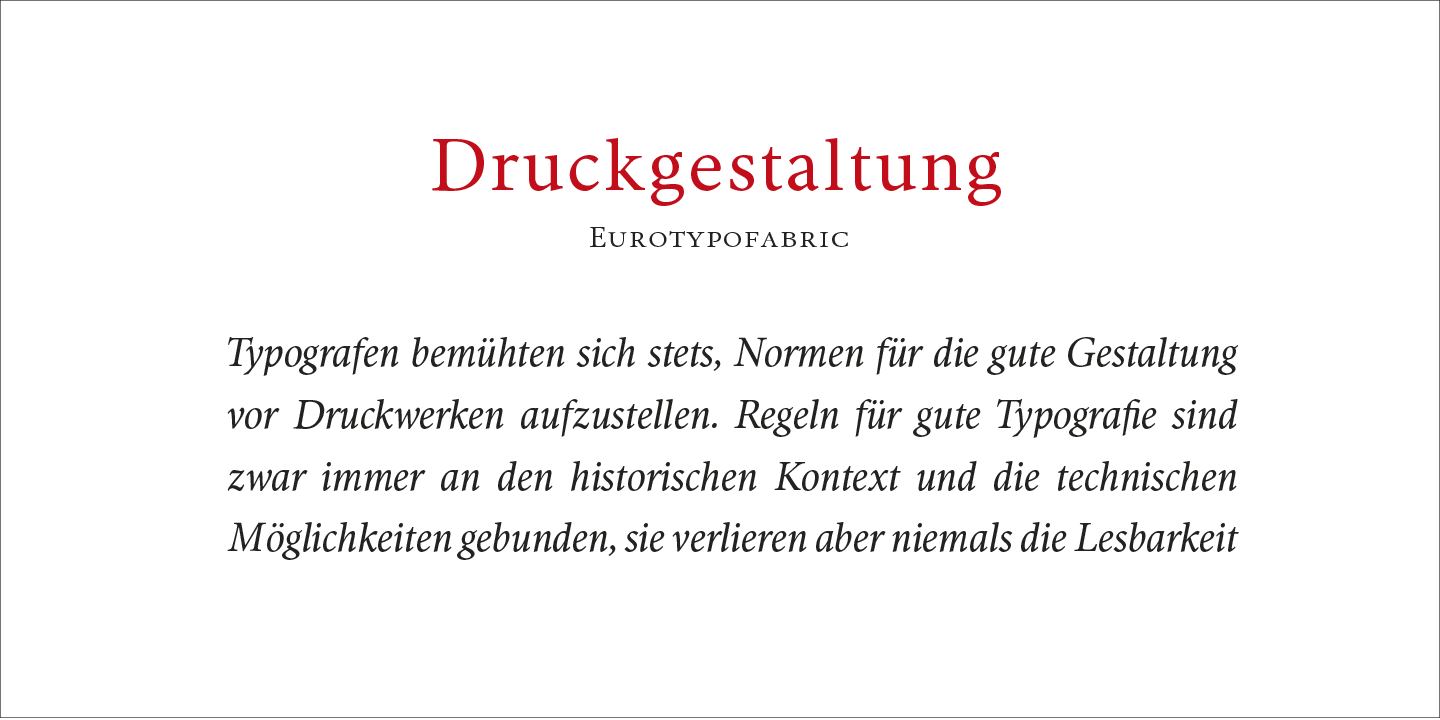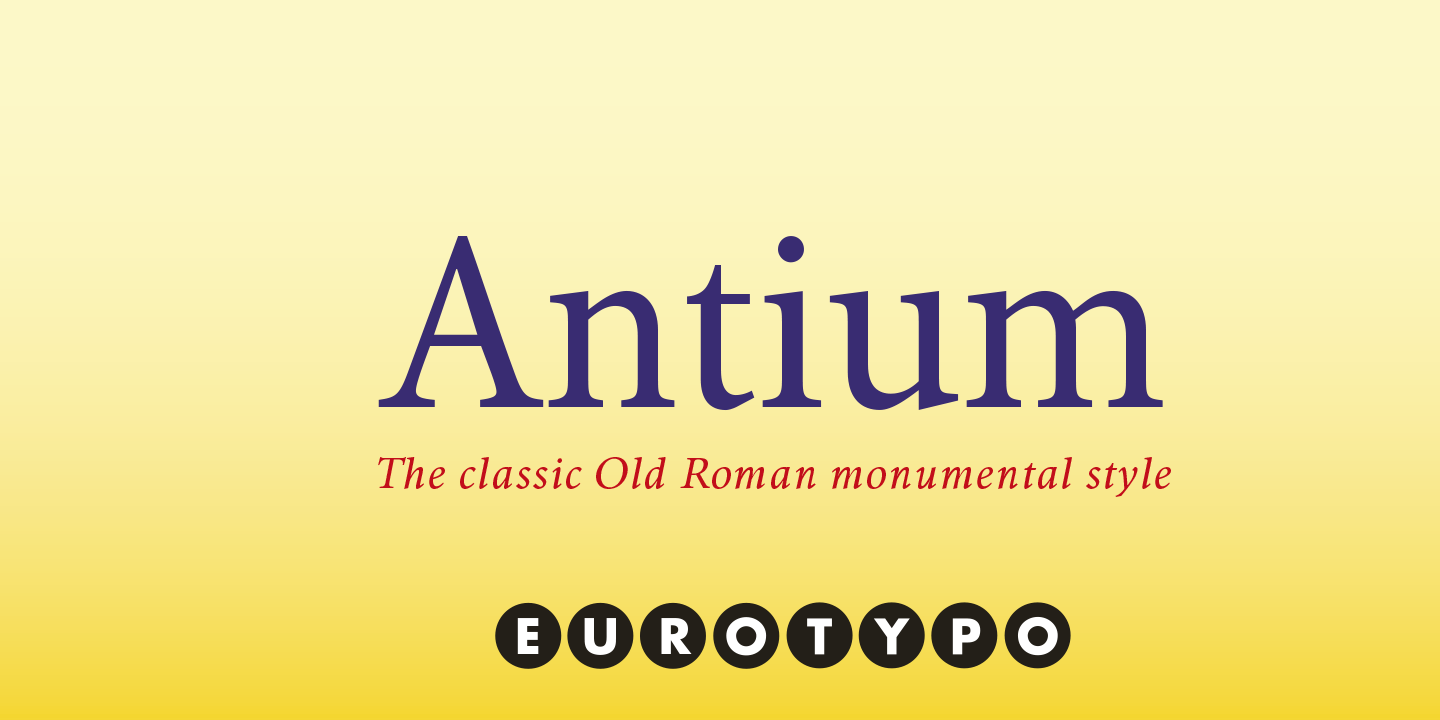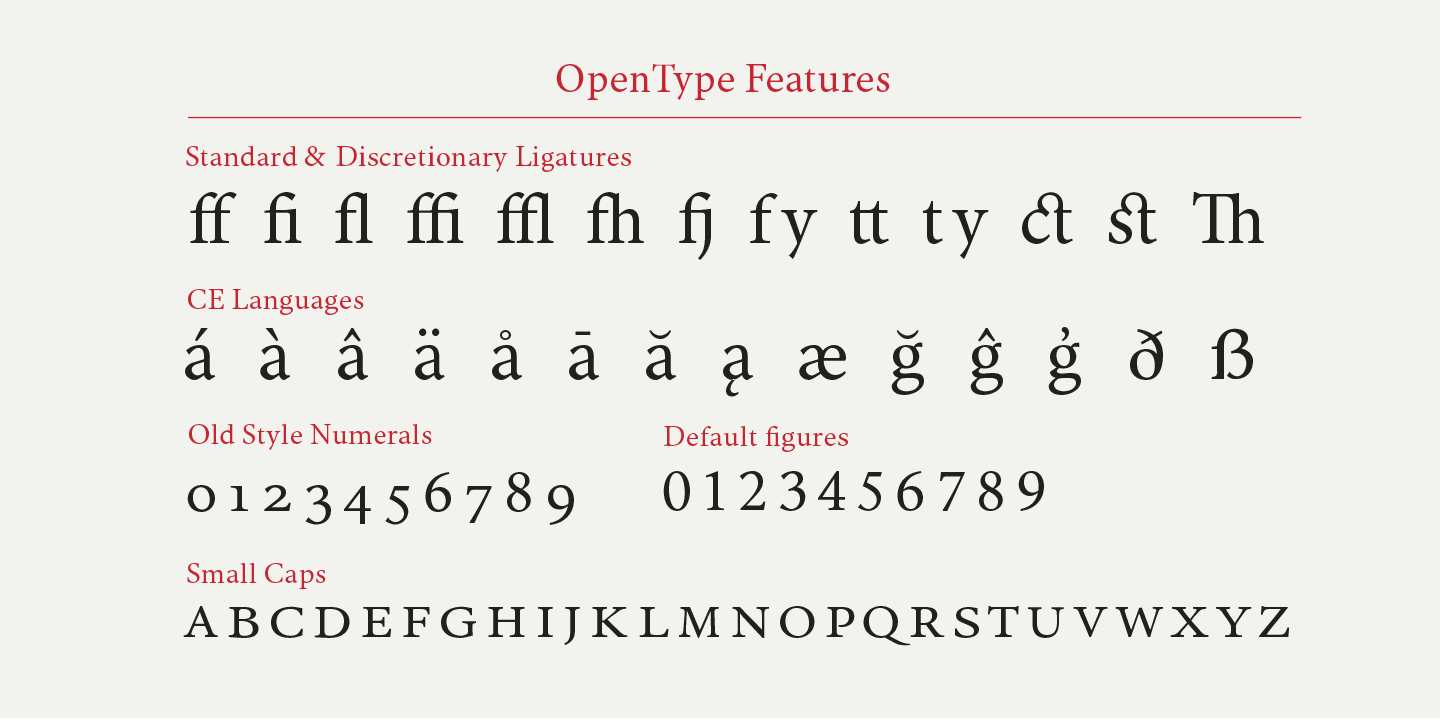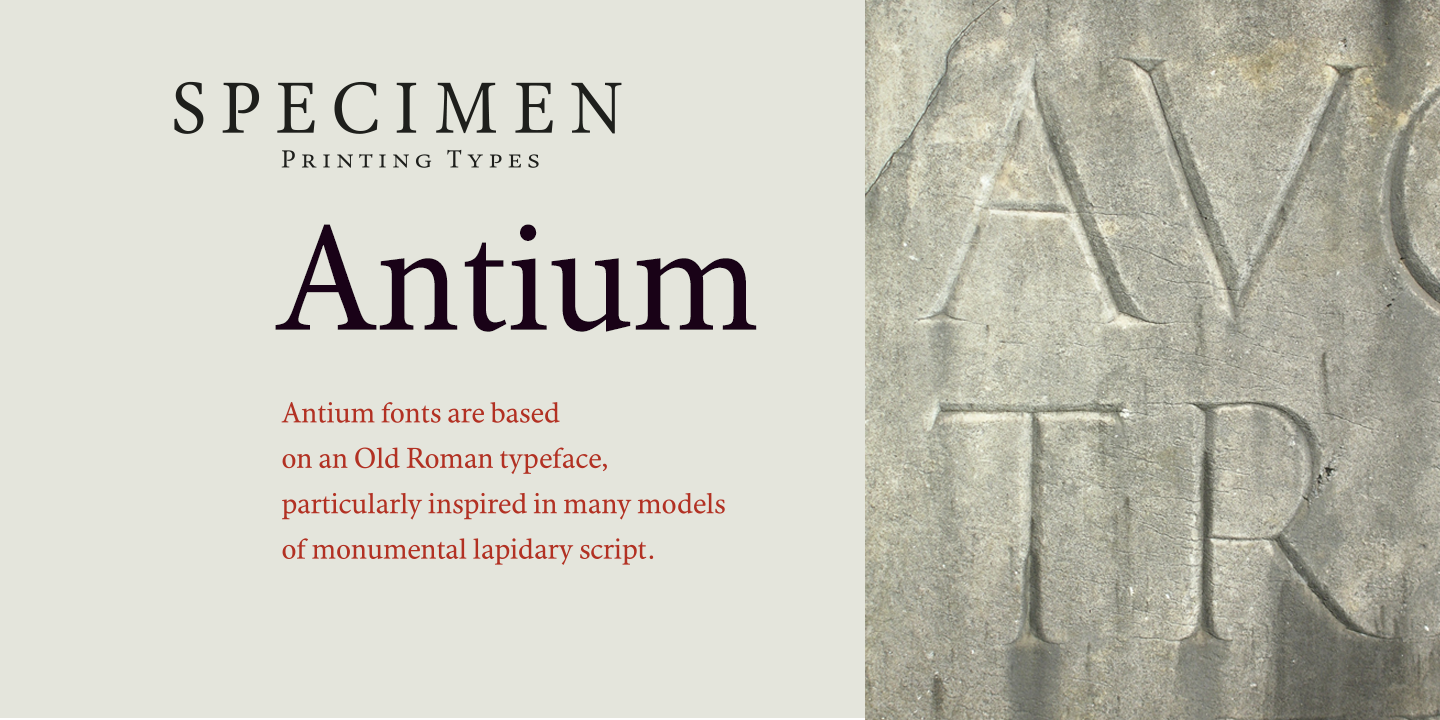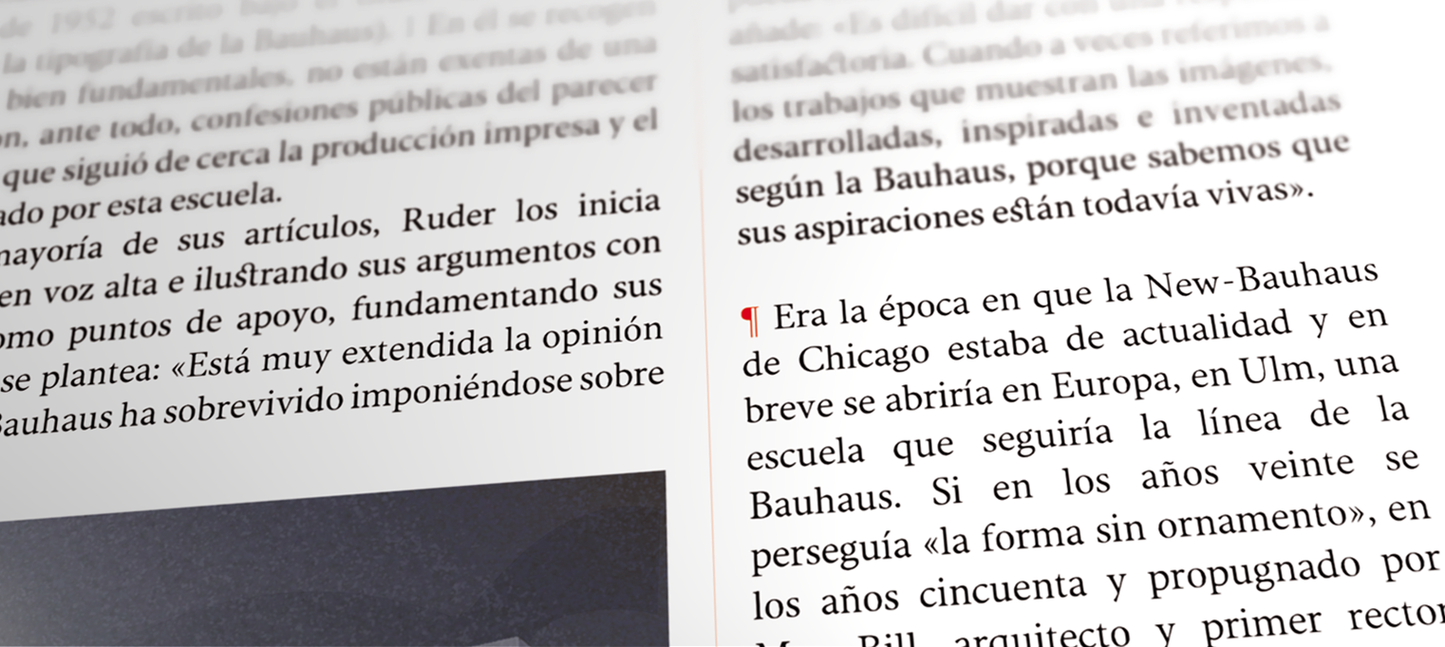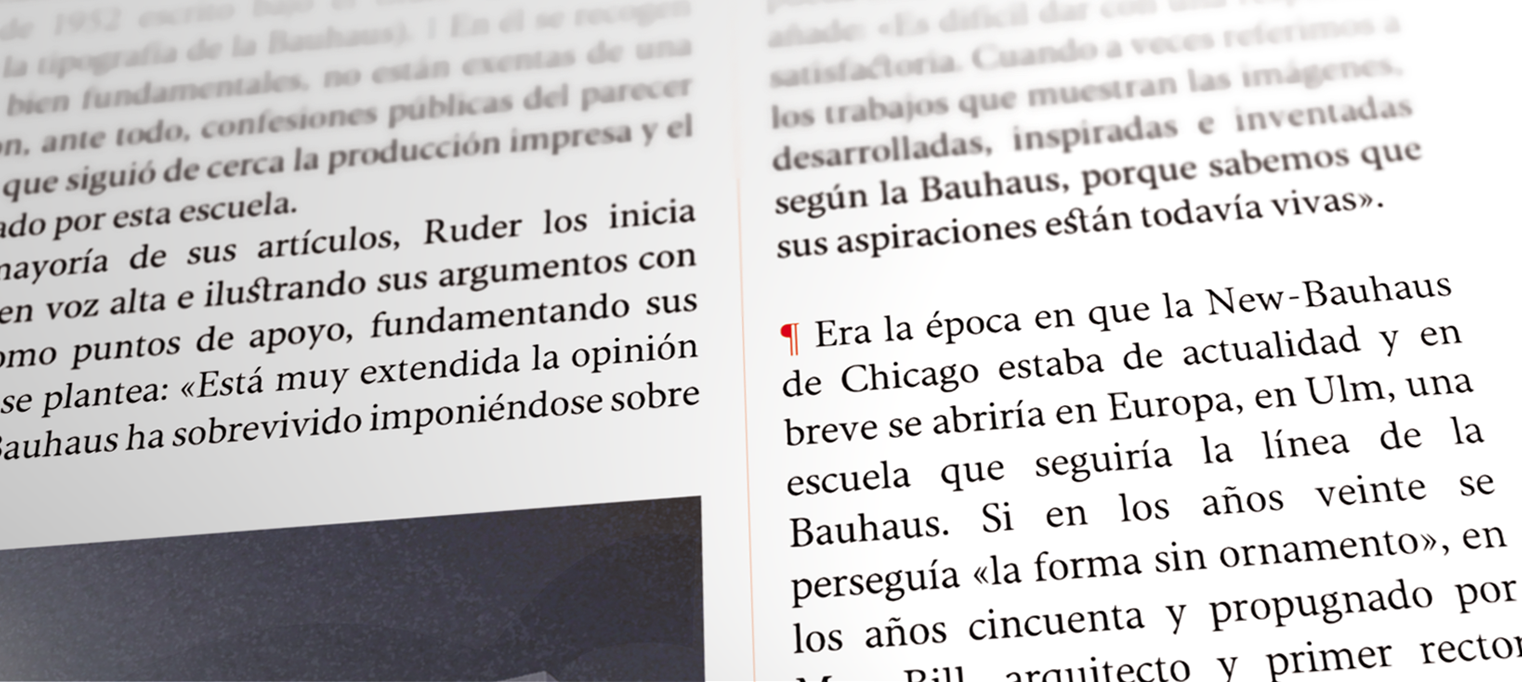
Antium
A Monumental Roman Serif
Antium is a distinctive serif typeface rooted in the tradition of Old Roman typography, inspired by monumental lapidary inscriptions found in the ancient cemetery of Pompeii. These stone-carved letterforms lend the typeface a timeless, architectural presence, combining historical authority with contemporary usability.
Engineered for Legibility & Balance
One of Antium’s defining characteristics is its generous x-height paired with notably short ascenders and descenders. This compact vertical structure creates a dense, balanced texture that enhances clarity and consistency, particularly at smaller sizes. The result is a typeface that remains highly legible while retaining a strong, sculptural identity.
Versatile for Editorial & Display Use
Thanks to its excellent readability, Antium performs reliably in editorial design, newsletters, books, and other printed materials where clarity is essential. At the same time, the bold personality of its glyphs makes it an excellent choice for headlines, titles, and display settings, where its classical roots and distinctive shapes can truly stand out.
Rooted in Classical History
The name Antium refers to the ancient city of Antinum (modern Anzio), once the capital of the Volscians before its conquest by Rome in 468 BC. Situated on the Mediterranean coast near Rome, Antium is steeped in legend—said to have been founded by a son of Ulysses and Circe—and history, as the birthplace of Roman emperors Caligula and Nero. This rich cultural heritage is reflected in the font’s enduring and monumental character.